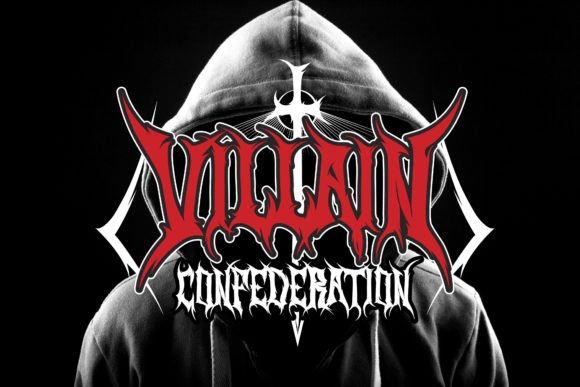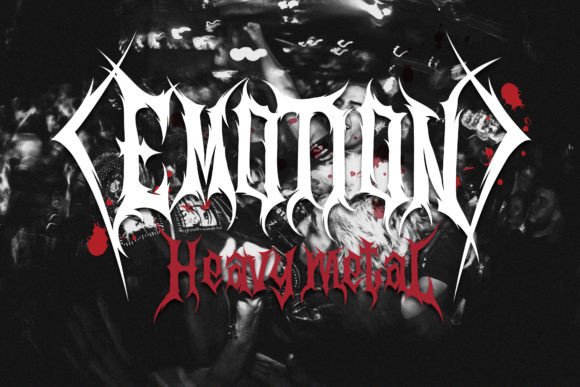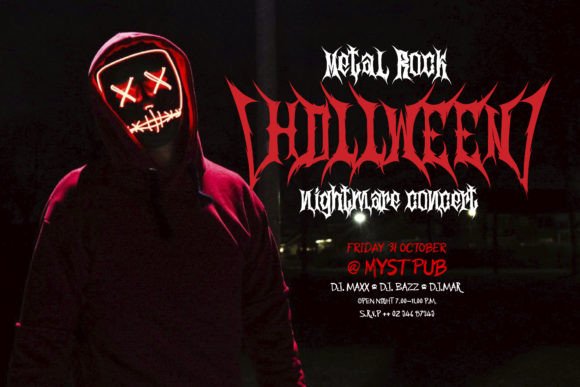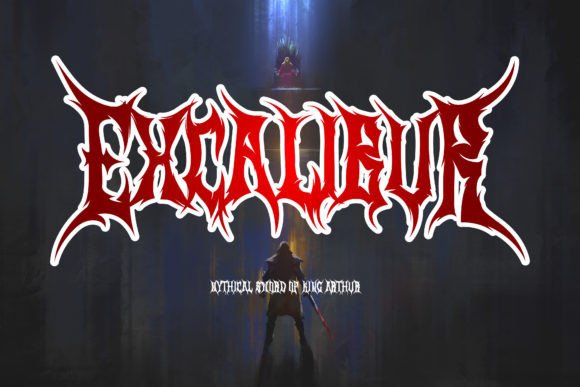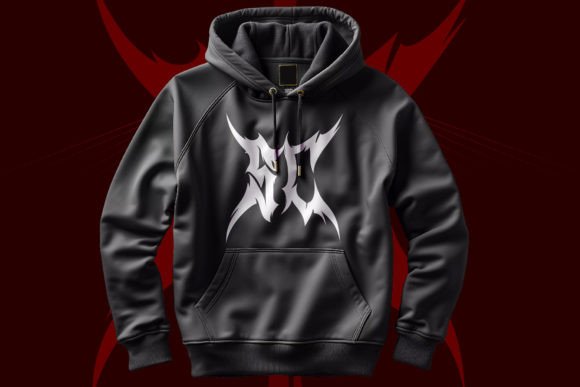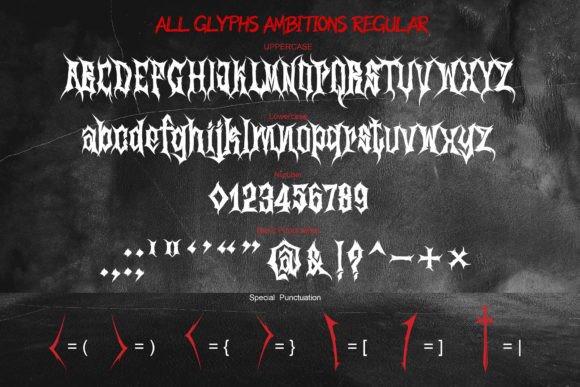
Unleash the Power of Heavy Metal with Ambitions Font
Are you a designer or crafter looking to elevate your rock music posters and T-shirt designs to the next level? Look no further than Ambitions, the quintessential heavy metal font. This bold and powerful font is specifically designed to capture the essence of the heavy metal genre, delivering a striking punch that can transform your logo designs and take your creativity to new heights.
The Power of Ambitions Font
Ambitions font is not just any ordinary font. It’s a carefully crafted typeface that embodies the spirit of heavy metal music – bold, fearless, and unapologetic. With its sharp edges and rugged texture, Ambitions font is the perfect choice for designers who want to create eye-catching and memorable designs that reflect the energy and intensity of heavy metal music.
Elevate Your Rock Music Posters and T-Shirt Designs
Whether you’re designing posters for a heavy metal concert or creating T-shirt designs for a rock band, Ambitions font is the perfect choice. Its bold and edgy design ensures that your artwork will stand out from the crowd, grabbing the attention of fans and enthusiasts alike. With Ambitions font, you can create designs that are not only visually stunning but also authentic and true to the spirit of heavy metal music.
Transform Your Logo Designs with Ambitions Font
Ambitions font is not just limited to posters and T-shirt designs. It’s also an excellent choice for logo design, allowing you to create a bold and memorable brand identity that reflects your heavy metal style. Whether you’re designing a logo for a rock band, a heavy metal clothing line, or a music festival, Ambitions font can help you create a logo that is both striking and unforgettable.
Unleash Your Full Creative Potential with Ambitions Font
One of the best things about Ambitions font is its versatility. It’s a font that can be used in a variety of design contexts, from bold and edgy to sleek and sophisticated. Whether you’re a seasoned designer or a crafty DIY enthusiast, Ambitions font can help you unleash your full creative potential and amplify your ideas to the maximum.
Key Features of Ambitions Font
• Bold and Edgy Design: Ambitions font features a bold and edgy design that’s perfect for heavy metal music posters, T-shirt designs, and logo designs.
• Sharp Edges and Rugged Texture: The font’s sharp edges and rugged texture give it a distinctive look that’s both striking and memorable.
• Versatile and Flexible: Ambitions font can be used in a variety of design contexts, from bold and edgy to sleek and sophisticated.
• Perfect for Heavy Metal Music: The font is specifically designed to capture the essence of heavy metal music, making it the perfect choice for designers who want to create authentic and true designs.
Tips and Tricks for Using Ambitions Font
Here are some tips and tricks for using Ambitions font in your designs:
• Use it bold and big: Ambitions font is all about making a statement, so don’t be afraid to use it bold and big in your designs.
• Experiment with different colors: The font looks great in a variety of colors, so experiment with different colors to find the one that works best for your design.
• Pair it with other fonts: Ambitions font can be paired with other fonts to create a unique and interesting design.
In conclusion, Ambitions font is a powerful and versatile font that’s perfect for designers and crafters who want to elevate their rock music posters and T-shirt designs to the next level. With its bold and edgy design, sharp edges, and rugged texture, Ambitions font is the quintessential heavy metal font that can help you unleash your full creative potential and amplify your ideas to the maximum. So why wait? Download Ambitions font today and start creating designs that are truly unforgettable!